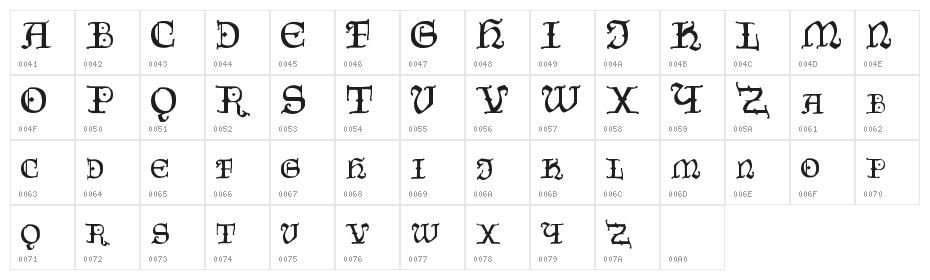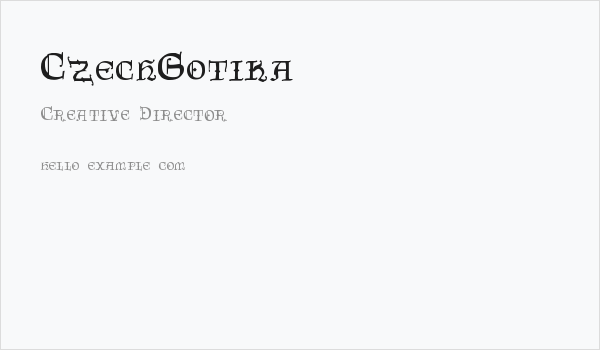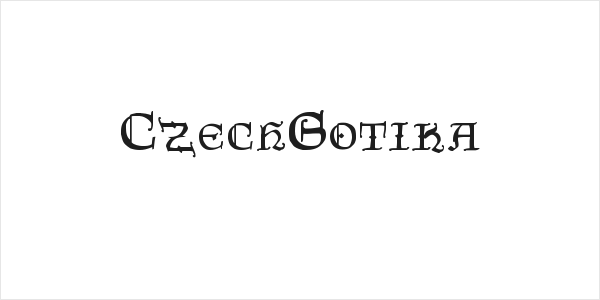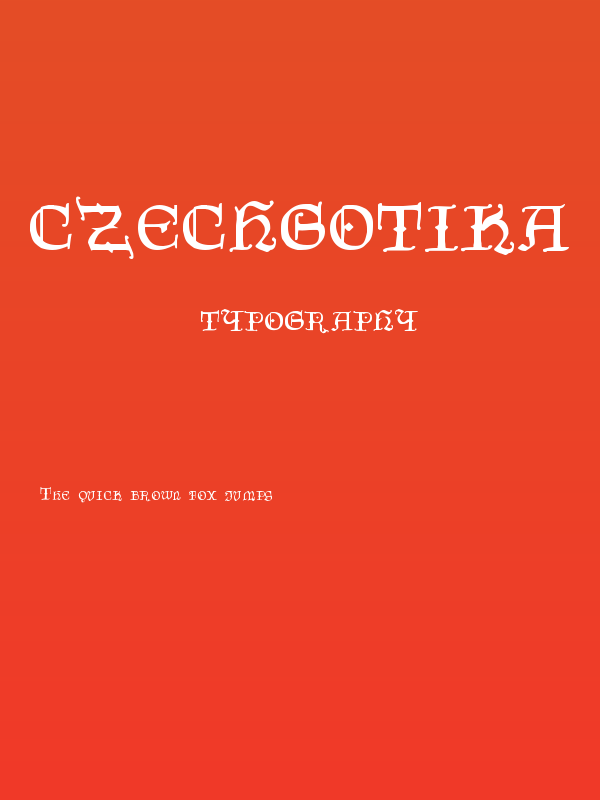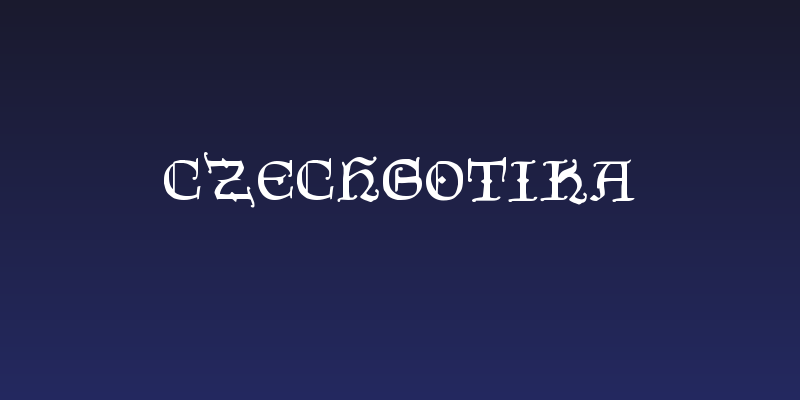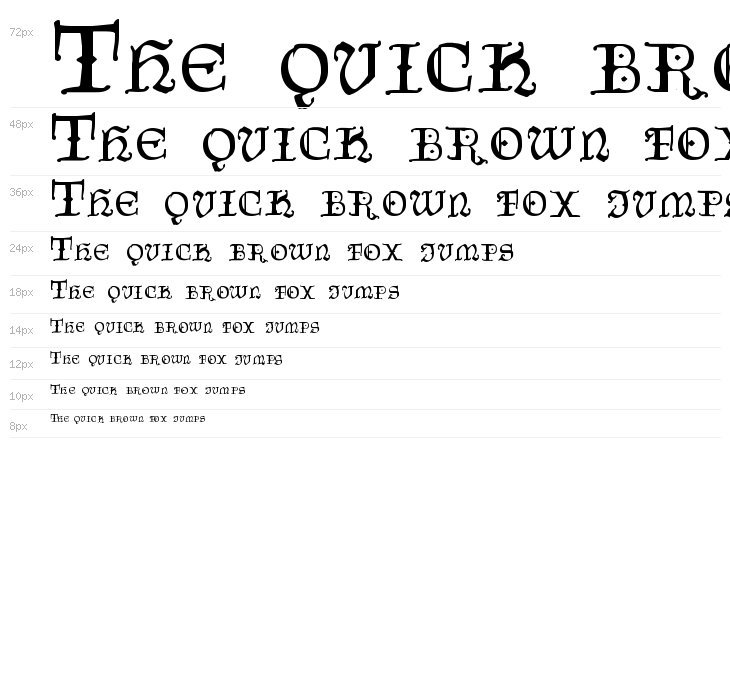
CzechGotika Font
CzechGotika Description
This font features a distinct Gothic style with intricate, decorative elements that evoke a sense of historical elegance. The characters are adorned with flourishes and sharp angles, giving them a dramatic and ornate appearance. The uppercase letters are particularly elaborate, with unique embellishments that enhance their visual impact. The lowercase letters maintain the same stylistic elements, ensuring consistency throughout the typeface. The numbers and special characters are designed to match the overall aesthetic, making this font suitable for projects that require a touch of medieval or vintage flair.
| Proposed Projects | Ideal for historical documents, vintage-themed designs, book covers, and event invitations. |